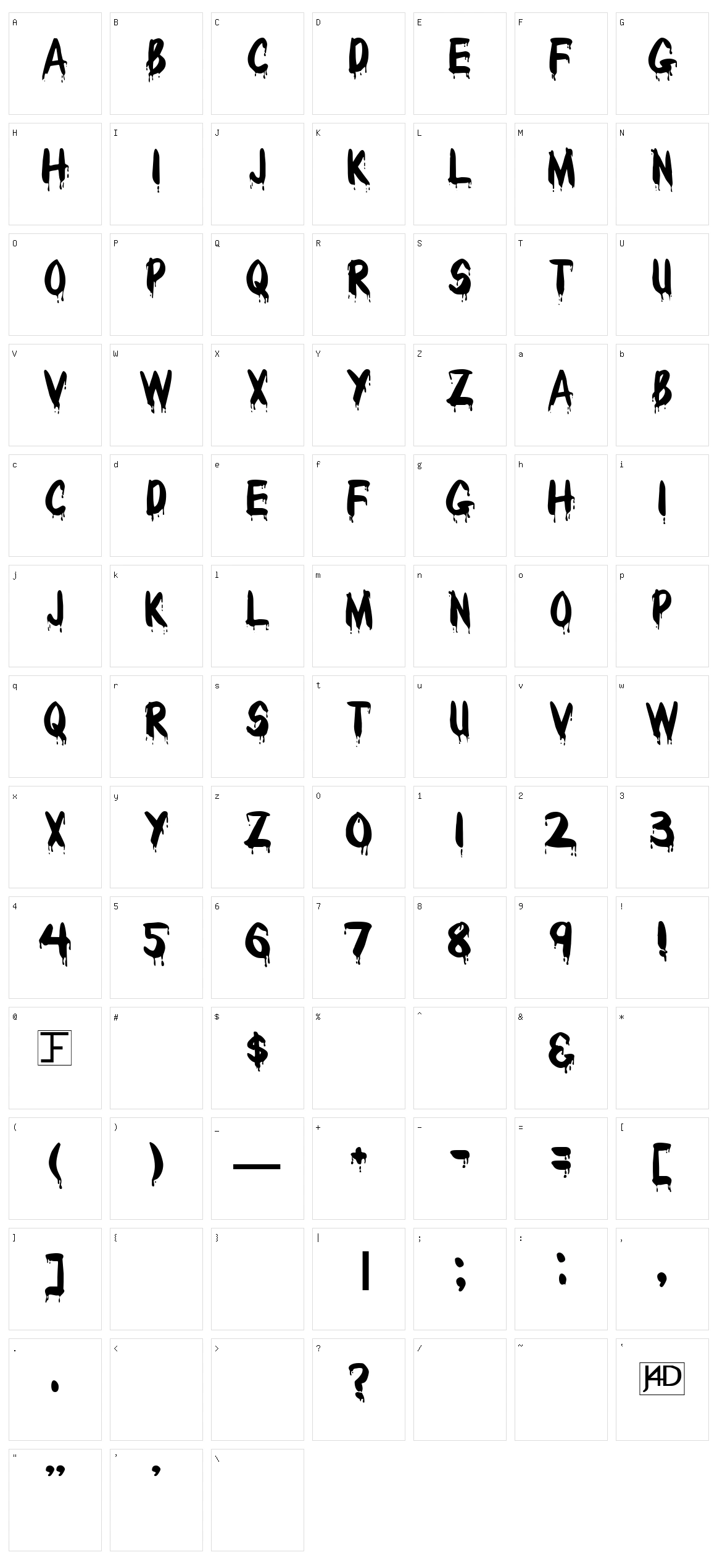
The free font Bloody is carefully designed by James Fordyce, showcasing a thoughtful balance of creativity and usability and falls under the Horror font style. When you download the ZIP file, it contains only 20.74 KB of font files, making it lightweight and quick to download. Please review the license details below to understand permitted usage and distribution rights. If license information is not available, we recommend using this font for personal projects only or contacting the author directly for commercial usage permissions.